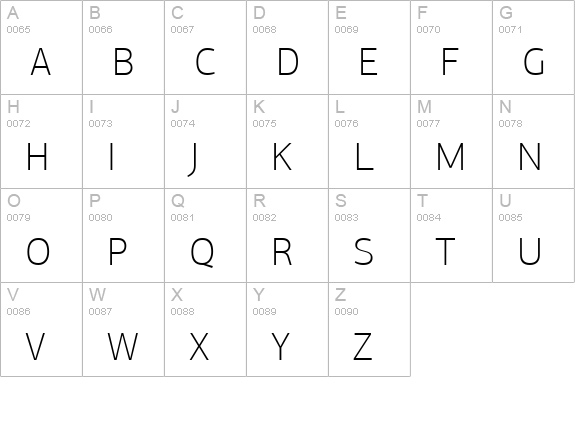
PFAgoraSansPro-Thin is a delicate, low-contrast variant in the PFAgoraSansPro typeface family \xE2\x80\x94 well suited to fashion editorial, minimal branding, and high-contrast display.
PFAgoraSansPro-Thin font is an elegant and modern typeface that exudes sophistication and minimalism. With its sleek and slender design, this font is perfect for creating a clean and contemporary look in various design projects. The thin strokes and precise letterforms of PFAgoraSansPro-Thin make it ideal for use in headings, logos, branding, and other display purposes. What sets PFAgoraSansPro-Thin font apart is that it is completely free to download at FontsMarket.com. This means that you can easily access this stylish typeface without any cost, making it a valuable addition to your font library. Whether you are a designer looking to add a touch of elegance to your projects or a business owner seeking a modern and professional font for your branding, PFAgoraSansPro-Thin is the perfect choice. Download it today and elevate your designs with this versatile and refined typeface.